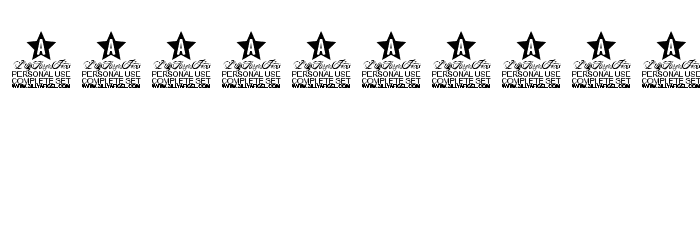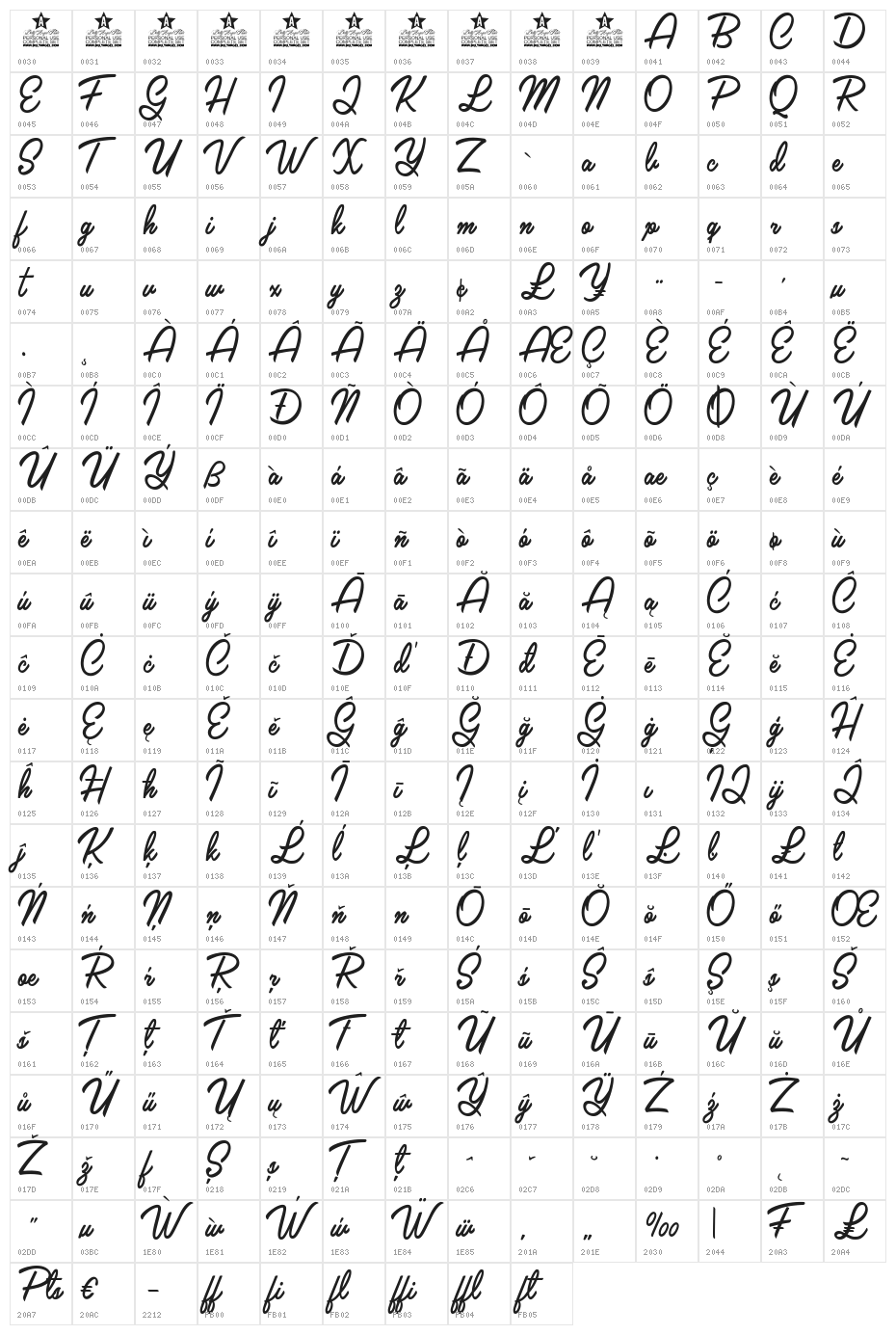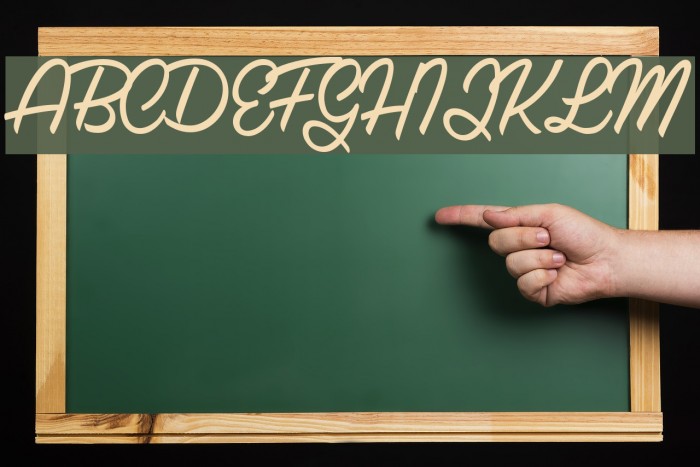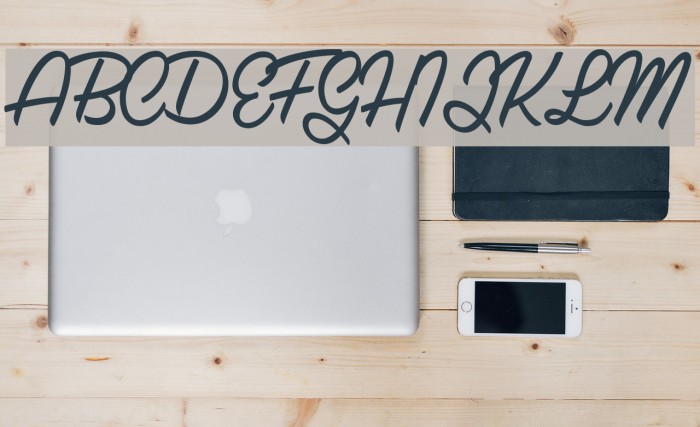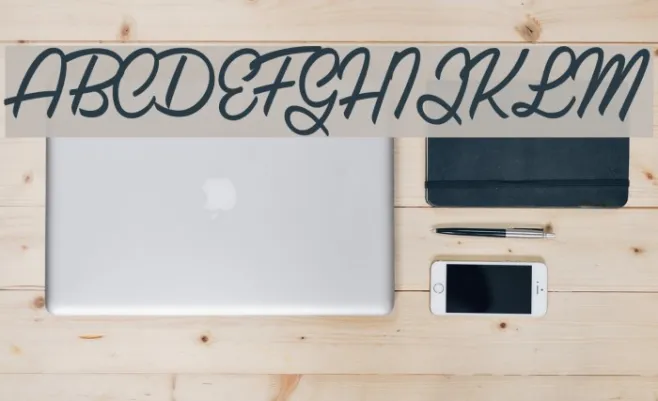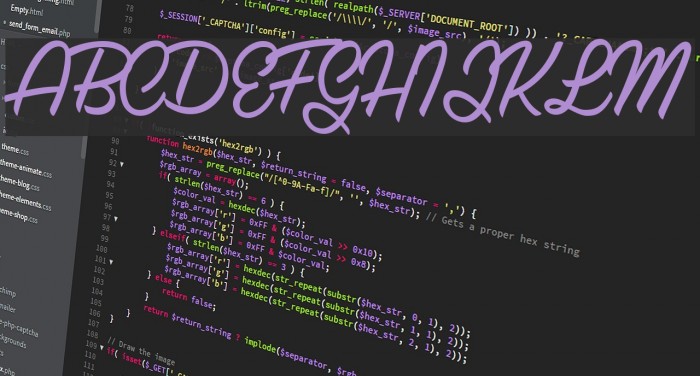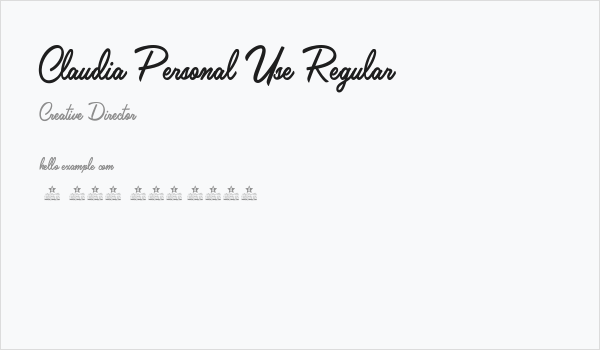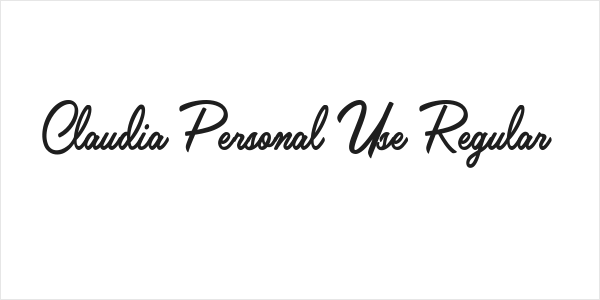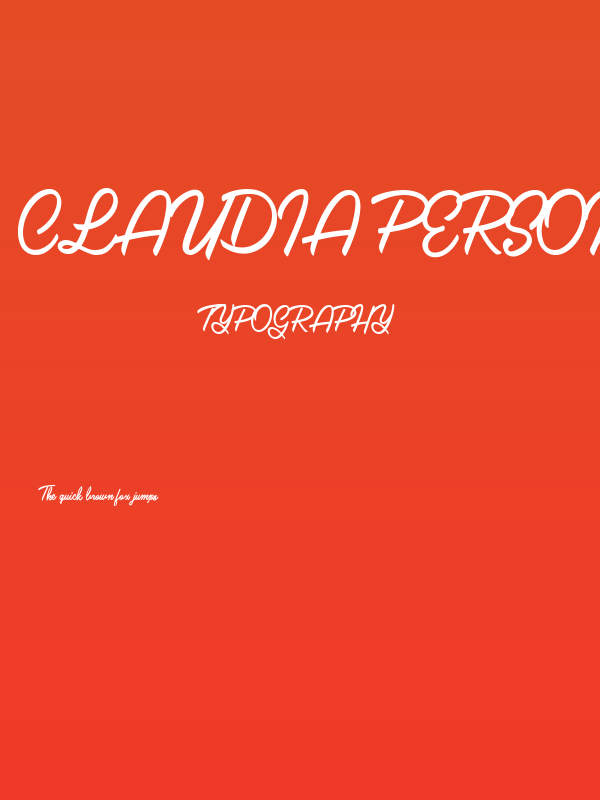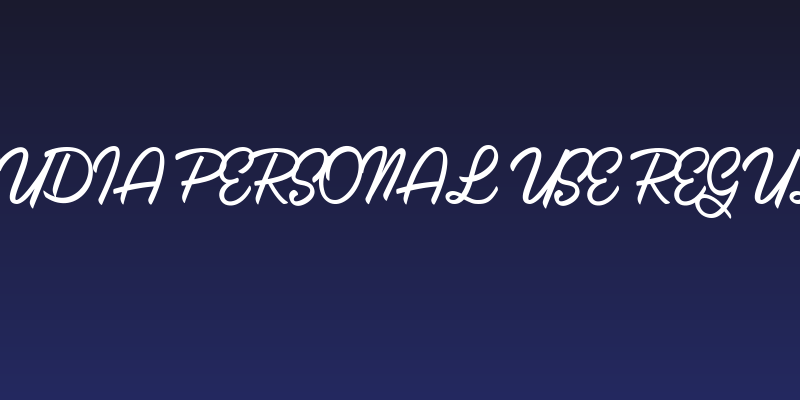
Claudia Personal Use Regular Font
Claudia Personal Use Regular Description
This font features a flowing, cursive style with elegant, sweeping lines that give it a personal and handwritten feel. The uppercase letters are bold and prominent, with a slight slant that adds to the dynamic appearance. The lowercase letters maintain a consistent style, with smooth connections between characters, enhancing the script-like quality. The numbers and special characters are designed to match the overall aesthetic, ensuring a cohesive look across all text. This font exudes a sense of sophistication and creativity, making it ideal for projects that require a personal touch.